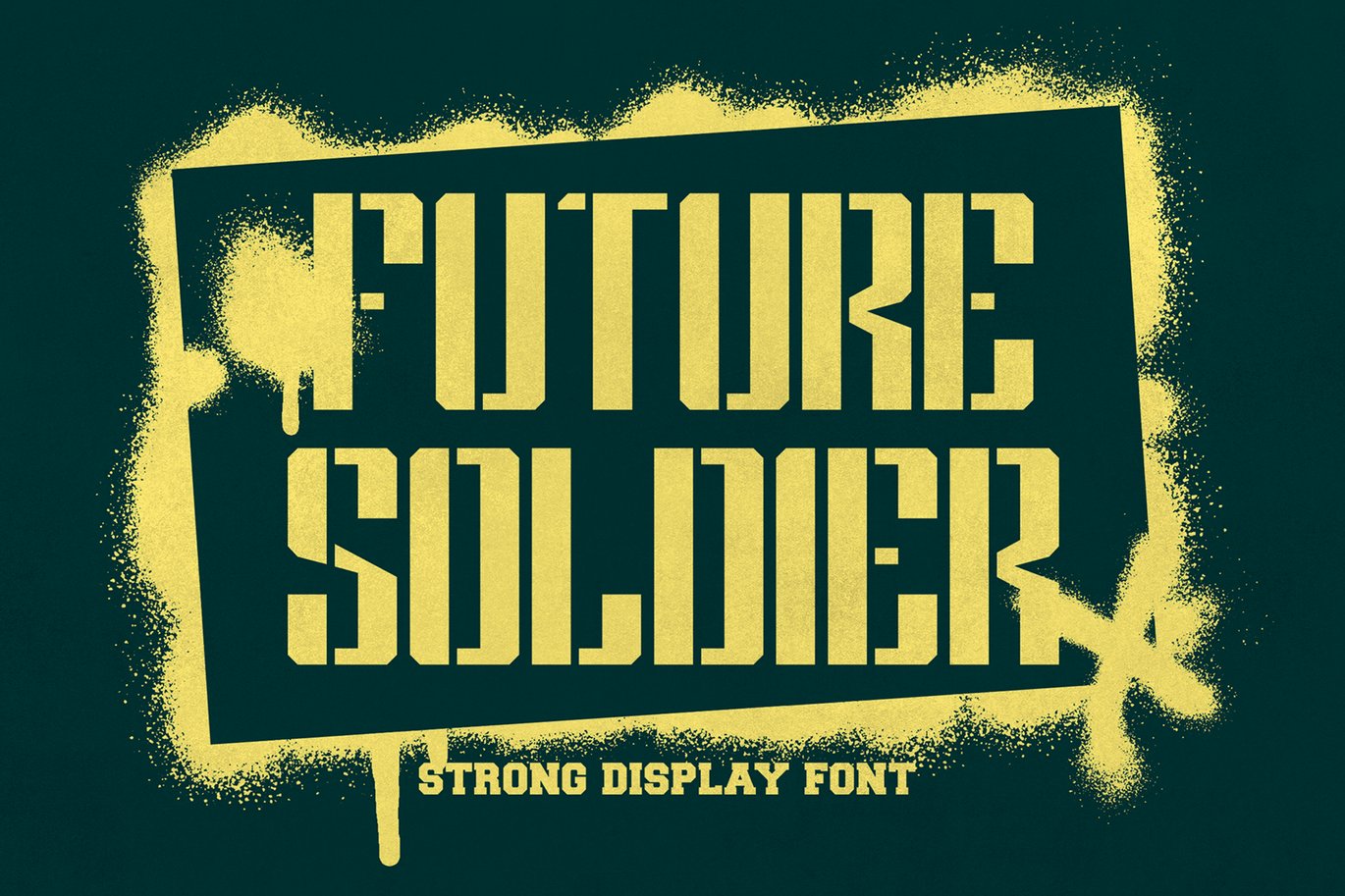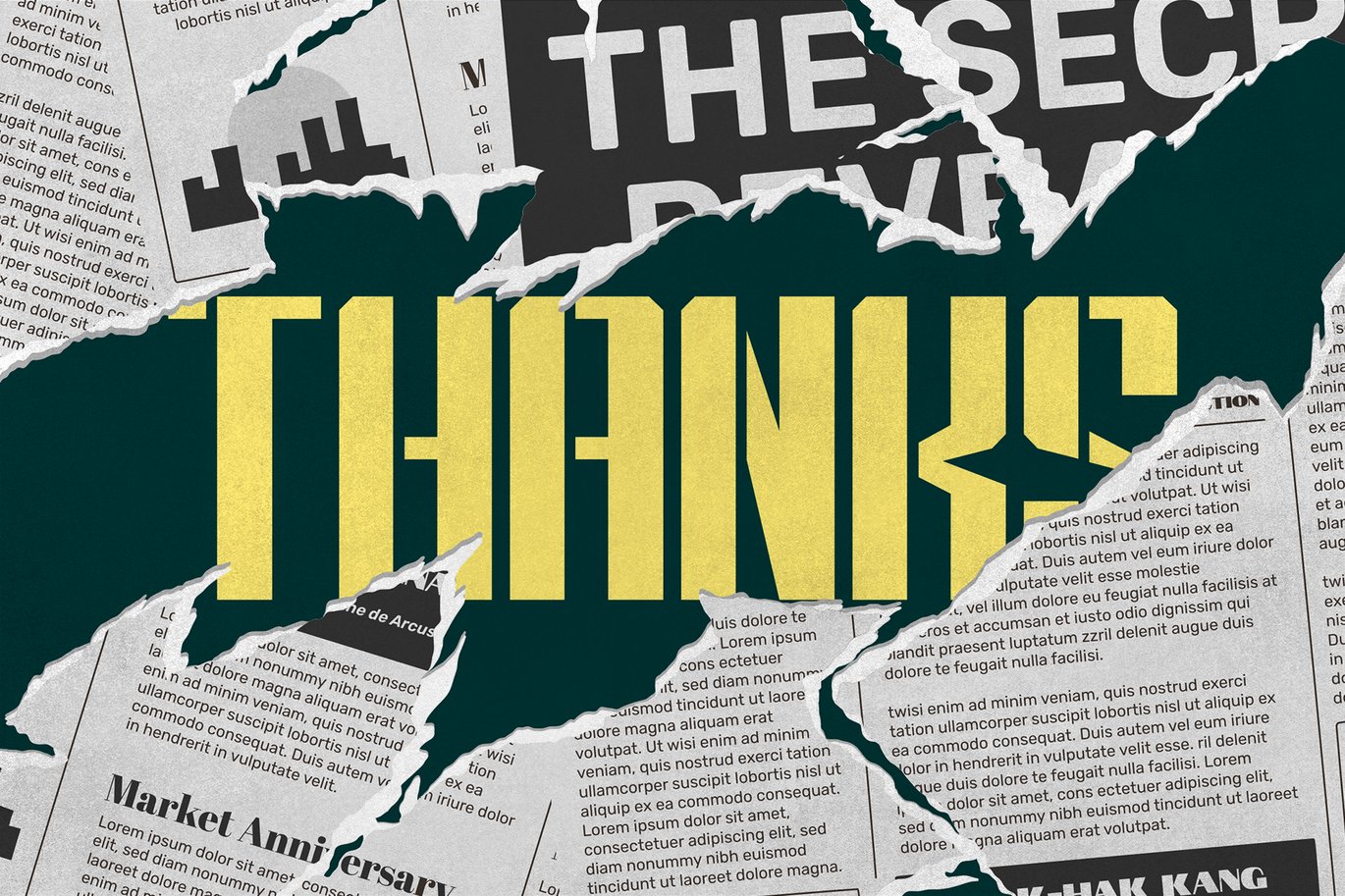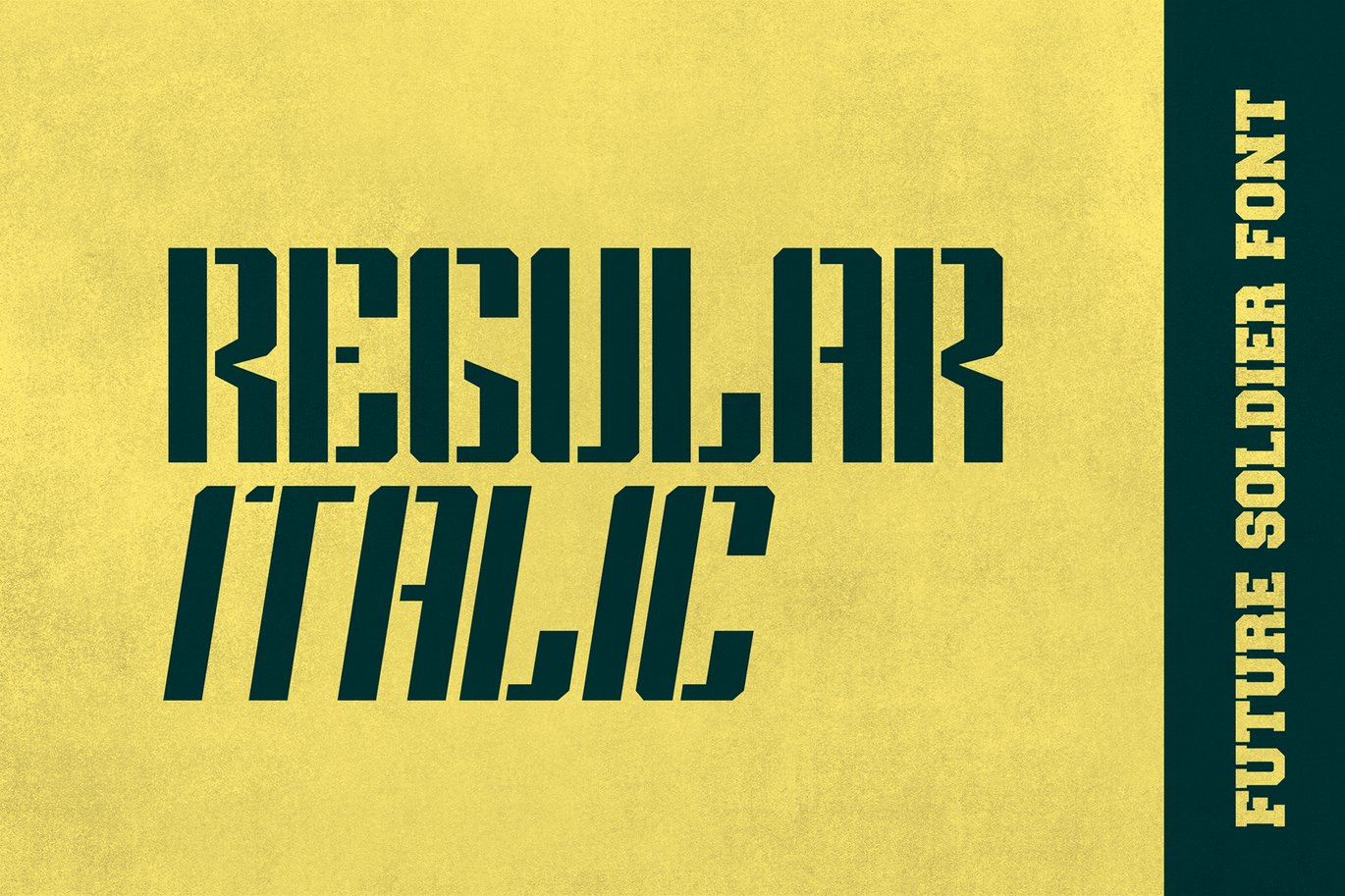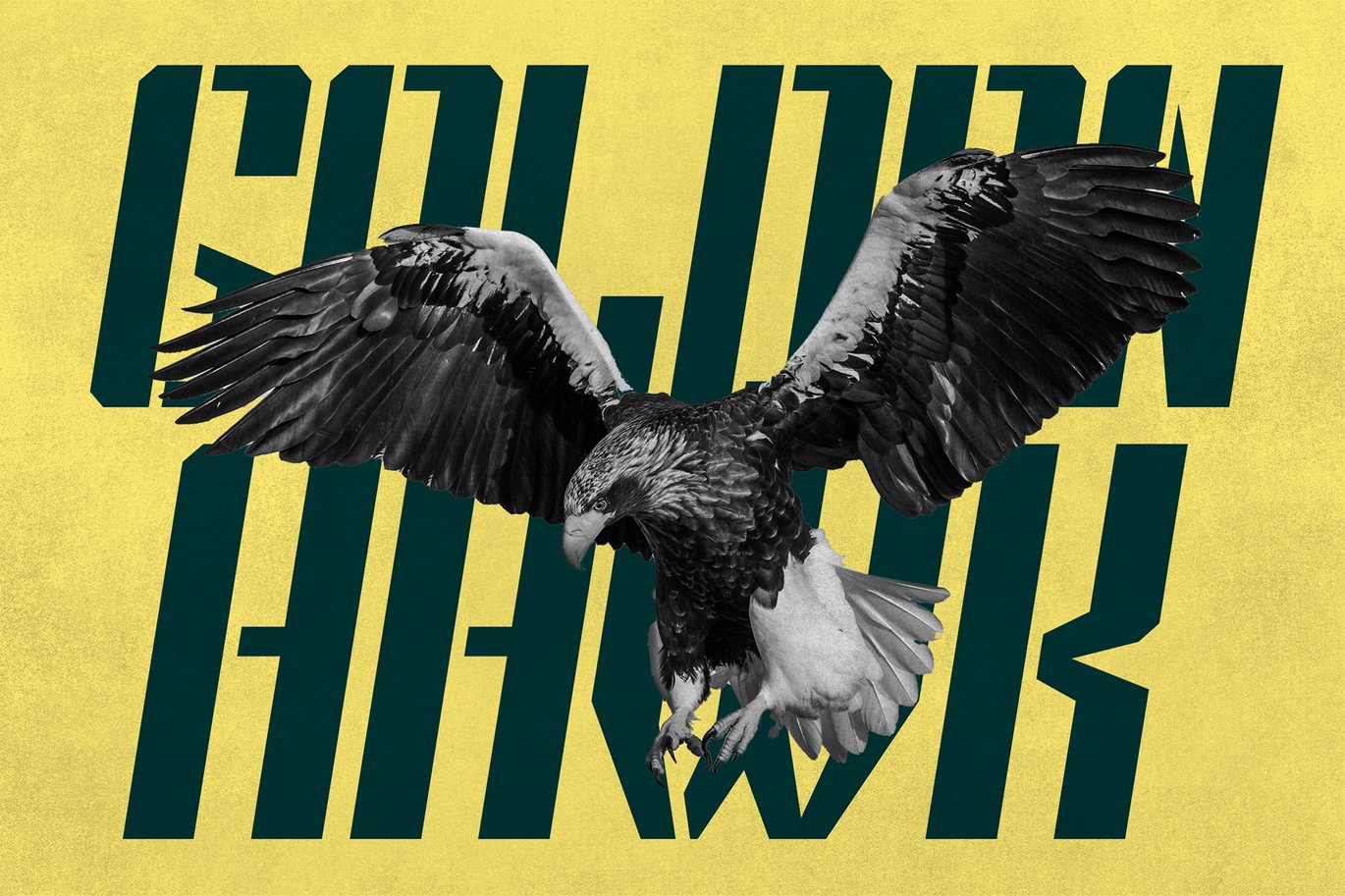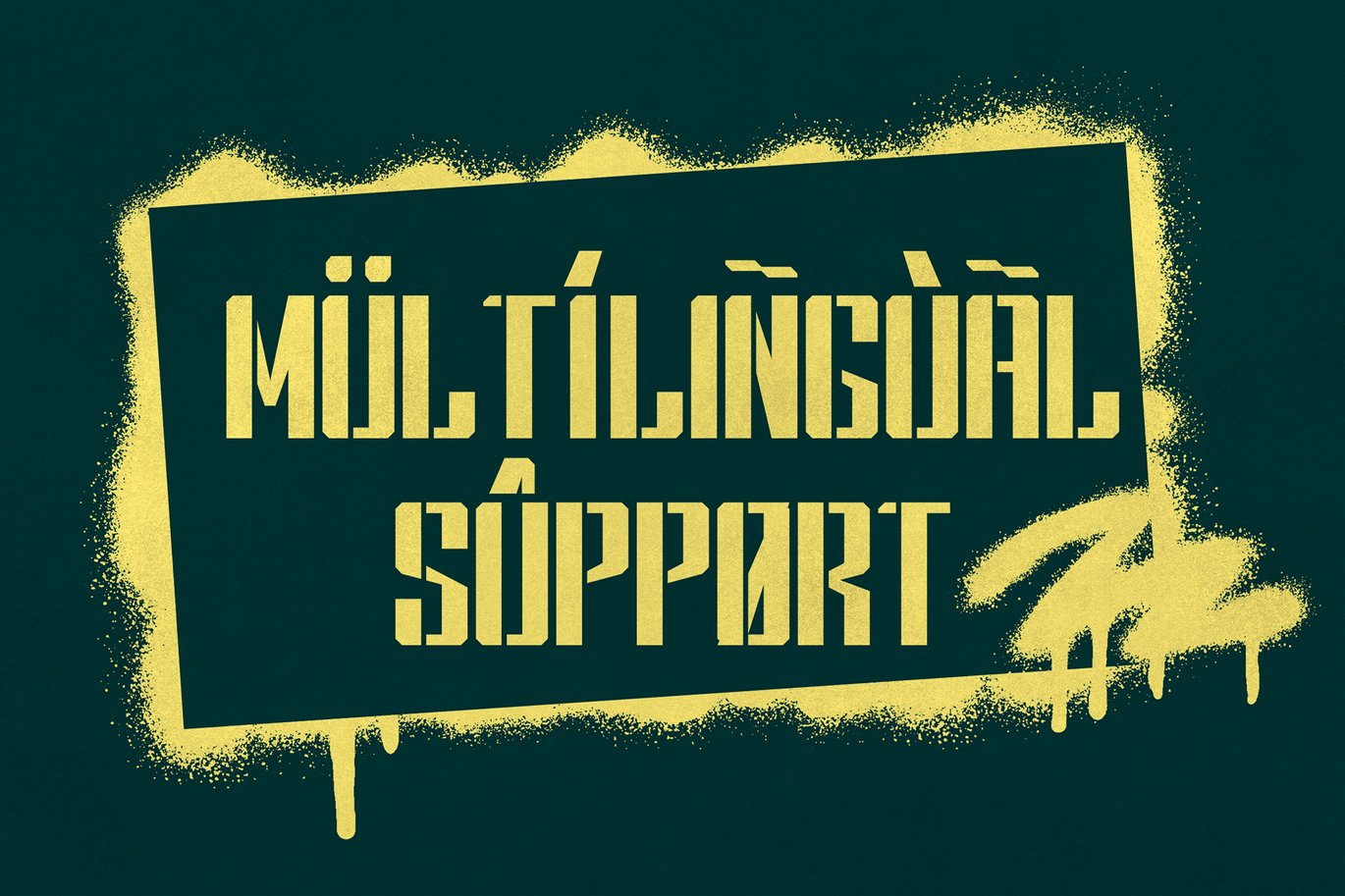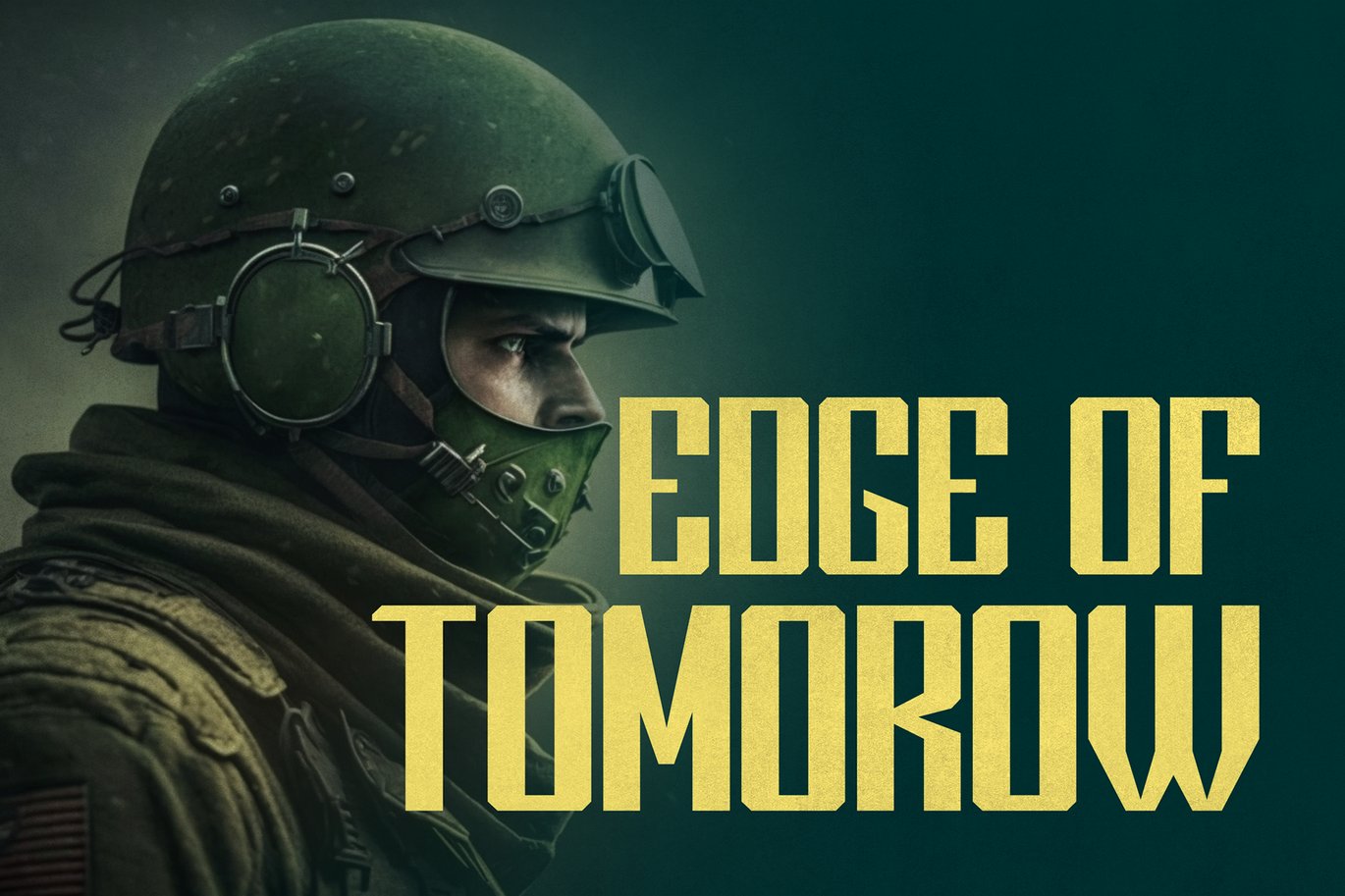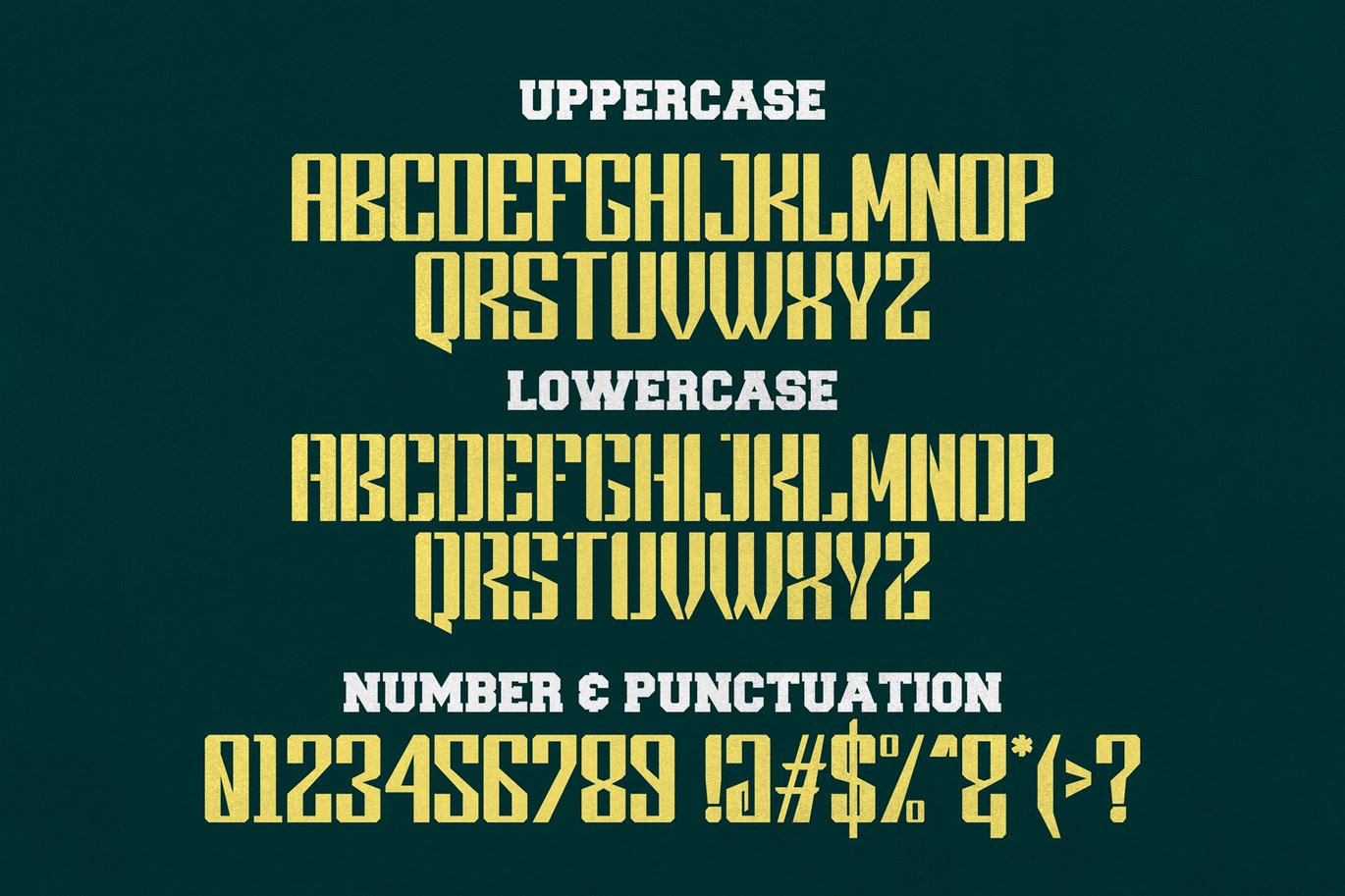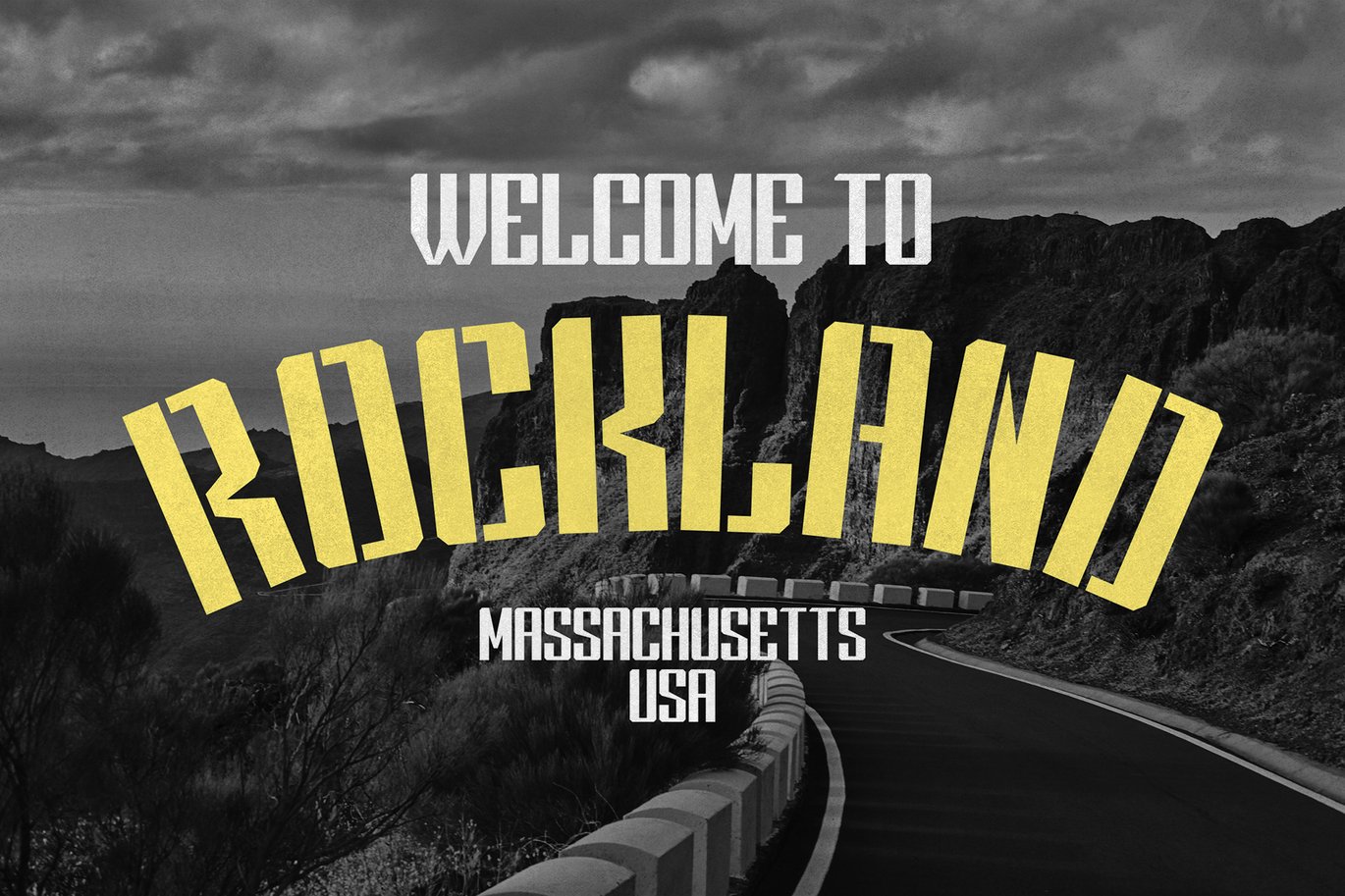
Future Soldier – Stencil Font
Introducing Future Soldier, the sleek and modern stencil display font that is perfect for your next military-inspired design project. With its bold and striking appearance, this font is guaranteed to make your text stand out and command attention.
Designed with a futuristic twist, the Future Soldier font is the perfect choice for those looking to create a cutting-edge design. Its clean and minimalist lines, combined with its stencil design, make it a versatile choice for a range of projects, from posters and flyers to packaging and logos.
Not only is the Future Soldier font visually impressive, but it’s also highly legible, making it easy for your audience to read and understand your message. Its sharp edges and well-defined characters make it a great choice for headlines and titles, as well as body text.